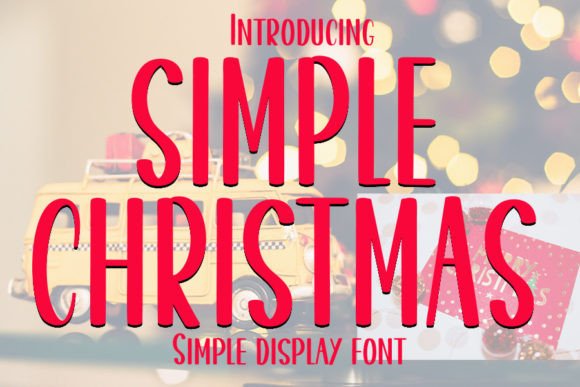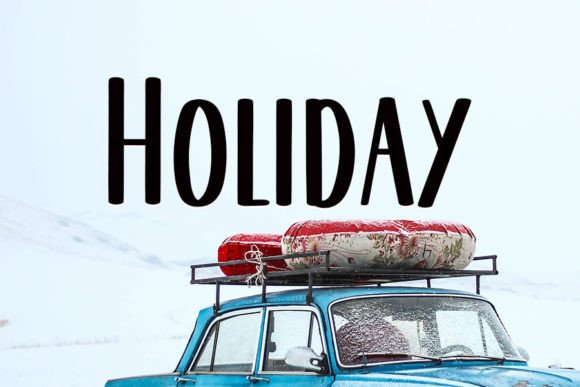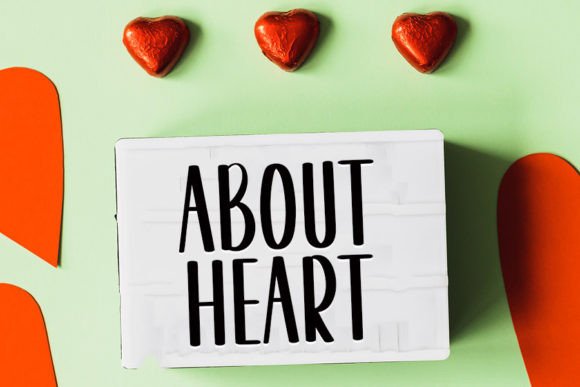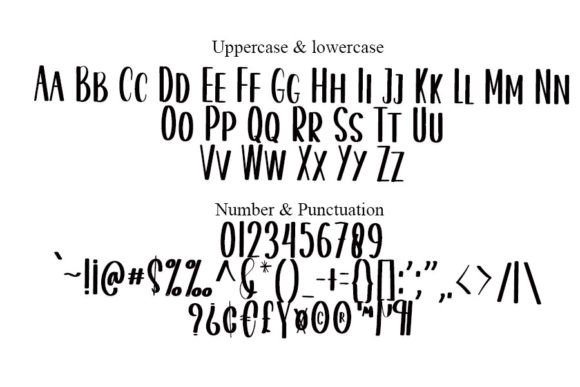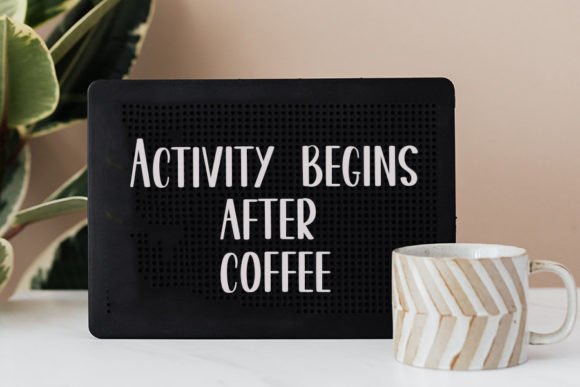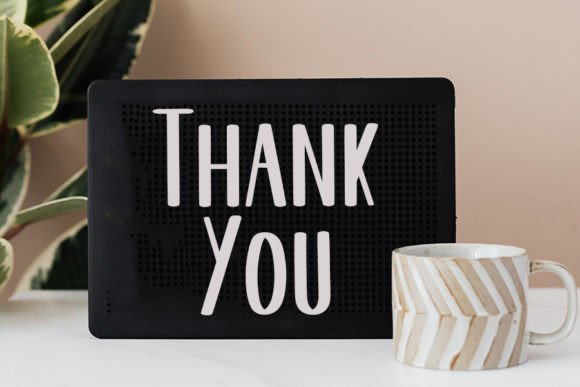
Simple Christmas Font
About Simple Christmas Font
Simple Christmas font is a warm and friendly handwritten typeface thoughtfully designed to become a beloved favorite in your font collection. Its inviting and natural style brings a handcrafted feel that perfectly suits festive and holiday-themed projects. Whether you are creating Christmas cards, holiday invitations, branding materials, or social media posts, Simple Christmas font adds a joyful and personal touch that makes your designs sparkle.
Warm and Inviting Holiday Style
The charm of Simple Christmas font lies in its smooth, flowing strokes and approachable letterforms. This font combines readability with festive cheer, making your holiday messages clear and engaging. Its versatile style works well for both modern and traditional Christmas designs, adding a timeless warmth to your projects.
Versatile Applications of Simple Christmas Font
Simple Christmas font is ideal for a variety of creative uses during the holiday season, including:
• Christmas cards and holiday greeting cards
• Festive invitations and party announcements
• Brand logos and packaging for seasonal products
• Social media graphics and marketing campaigns
• Gift tags, labels, and festive signage
Thanks to its friendly and adaptable nature, Simple Christmas font looks beautiful across both print and digital platforms, maintaining its cheerful vibe everywhere.
Adding Festive Personality and Warmth to Your Designs
Using Simple Christmas fon brings warmth and holiday spirit to your projects. Its handwritten style creates a heartfelt connection with your audience, making your messages feel sincere and joyful. This font enhances your creative work by giving it a unique and inviting festive look that stands out.
Why Choose Simple Christmas Font?
• Friendly and easy-to-read handwritten style
• Smooth, clear letterforms with festive charm
• Suitable for a wide range of holiday projects
• Adds warmth and personal cheer to designs
• Perfect for both print and digital holiday use
Final Thoughts on Simple Christmas Font
In conclusion, Simple Christmas fon is a friendly and charming handwritten typeface perfect for holiday cards, branding, social media, and more. Its warm and joyful style makes it a valuable asset for designers looking to add personality and festive cheer to their projects.